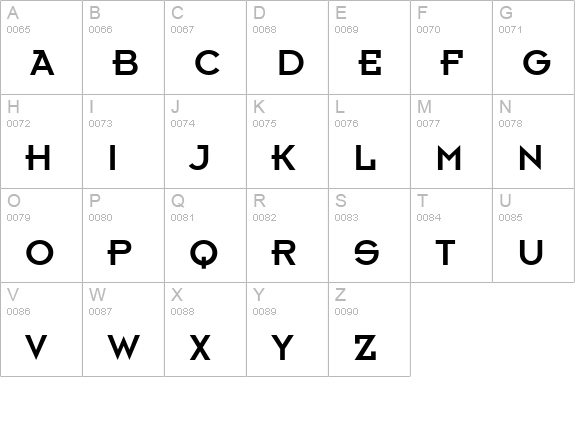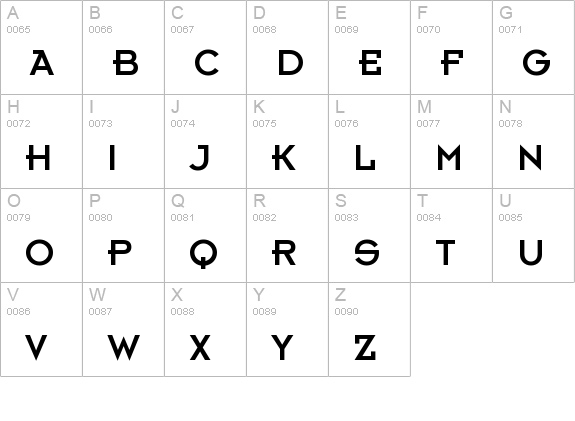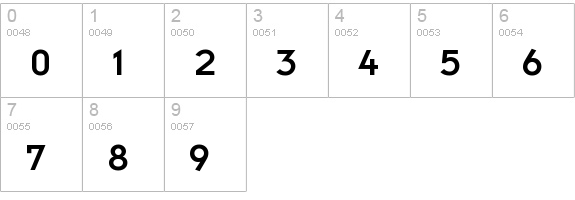
Kernel Alternate SSi Alternate Font Details
Introducing the extraordinary Kernel Alternate SSi Alternate font, a true gem in the world of typography. This font is the perfect blend of elegance and uniqueness, making it a versatile choice for a wide range of design projects. With its intricate and captivating letterforms, Kernel Alternate SSi Alternate font adds a touch of sophistication to any design. Whether you're creating a logo, designing a website, or working on a branding project, this font will undoubtedly captivate your audience and leave a lasting impression. What sets Kernel Alternate SSi Alternate font apart is not only its stunning aesthetics but also its versatility. It can effortlessly adapt to various design styles, from modern and minimalistic to vintage and retro. This versatility makes it a valuable asset for designers seeking to push the boundaries of creativity. The best part? Kernel Alternate SSi Alternate font is freely available to download at FontsMarket.com. That's right, you can now enhance your design projects with this exceptional font without any limitations. FontsMarket.com is your one-stop destination for high-quality fonts, and Kernel Alternate SSi Alternate font is a shining example of their commitment to providing designers with top-notch resources. So why wait? Unlock your creative potential and elevate your designs with the incredible Kernel Alternate SSi Alternate font. Download it for free at FontsMarket.com and witness the transformative power of exceptional typography.